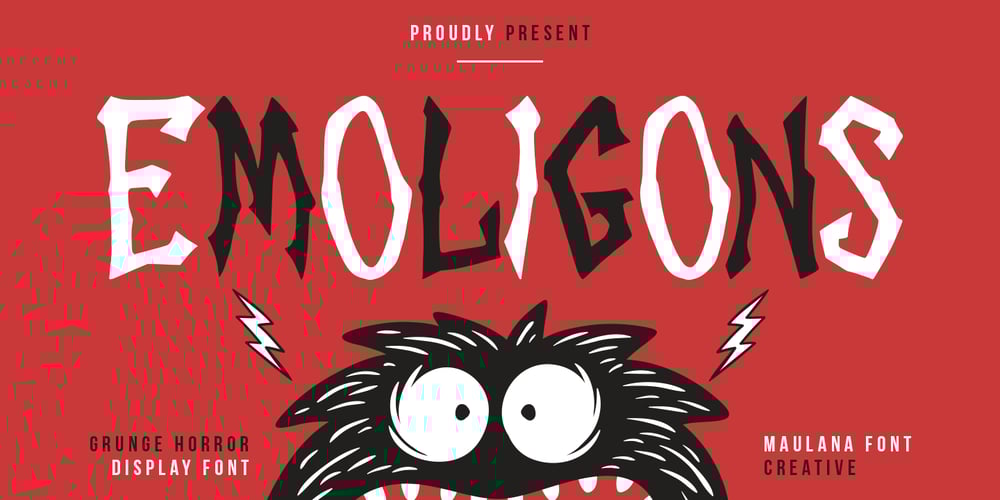
Emoligons
Emoligons font
Emoligons Font Family was designed by Gilang Maulana and published by Maulana Creative. Emoligons contains 1 styles and family package options. Emoligons grunge horror display font. Bold stroke, fun character with a bit of ligatures and alternates. To give you an extra creative work. Emoligons grunge horror display font support multilingual more than 100+ language. This font is good for logo design, Social media, Movie Titles, Books Titles, a short text even a long text letter and good for your secondary text font with script or serif. Make a stunning work with Emoligons grunge horror display font.Cheers,Maulana Creative